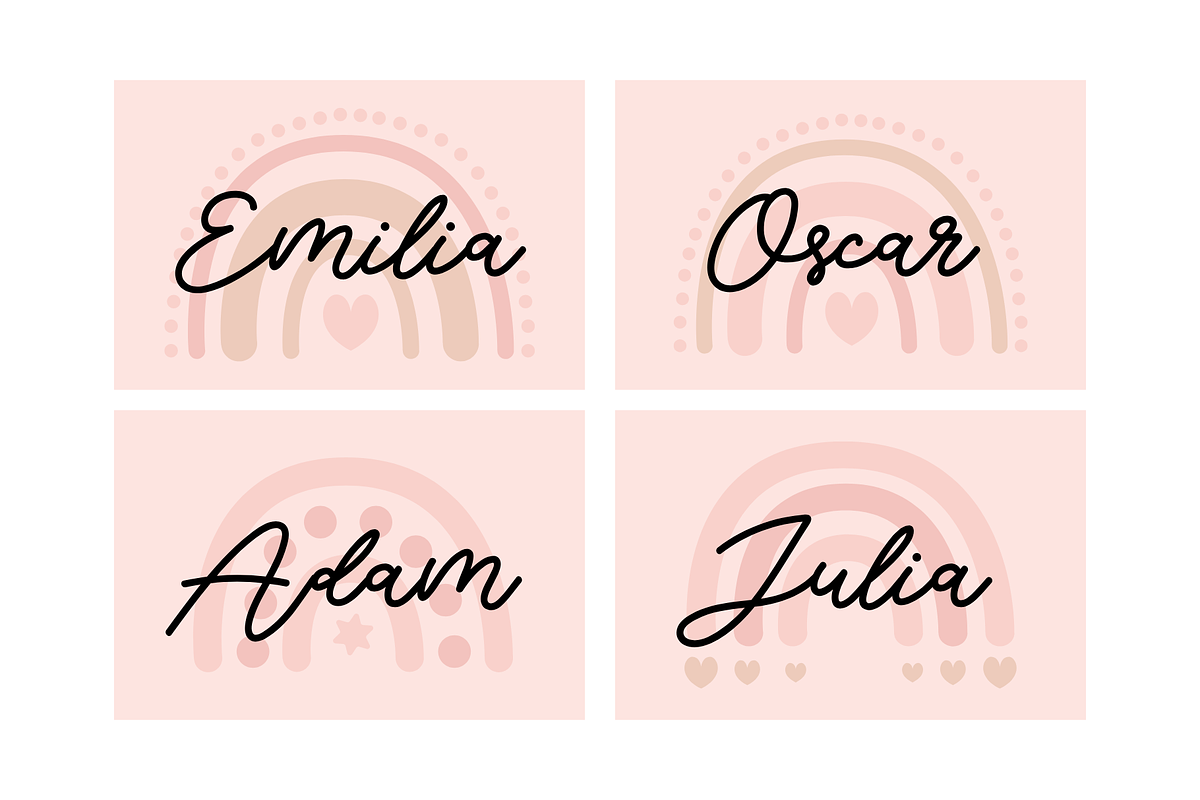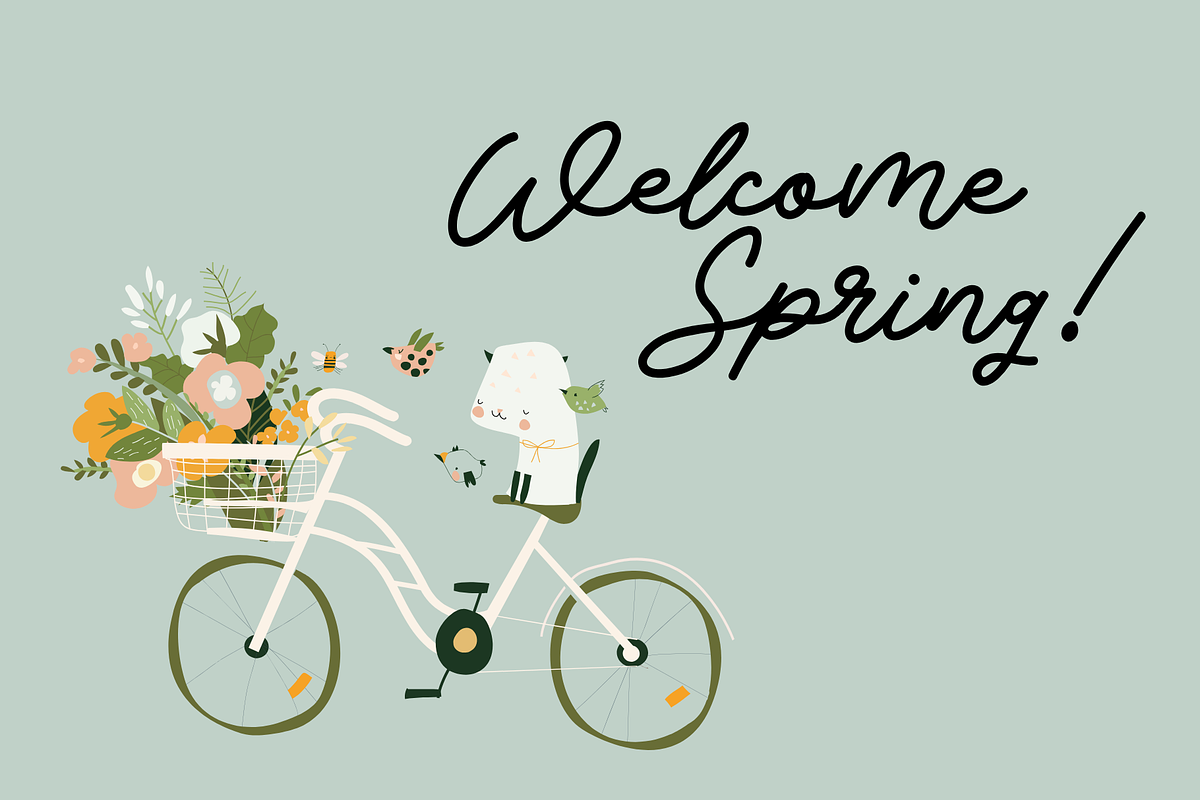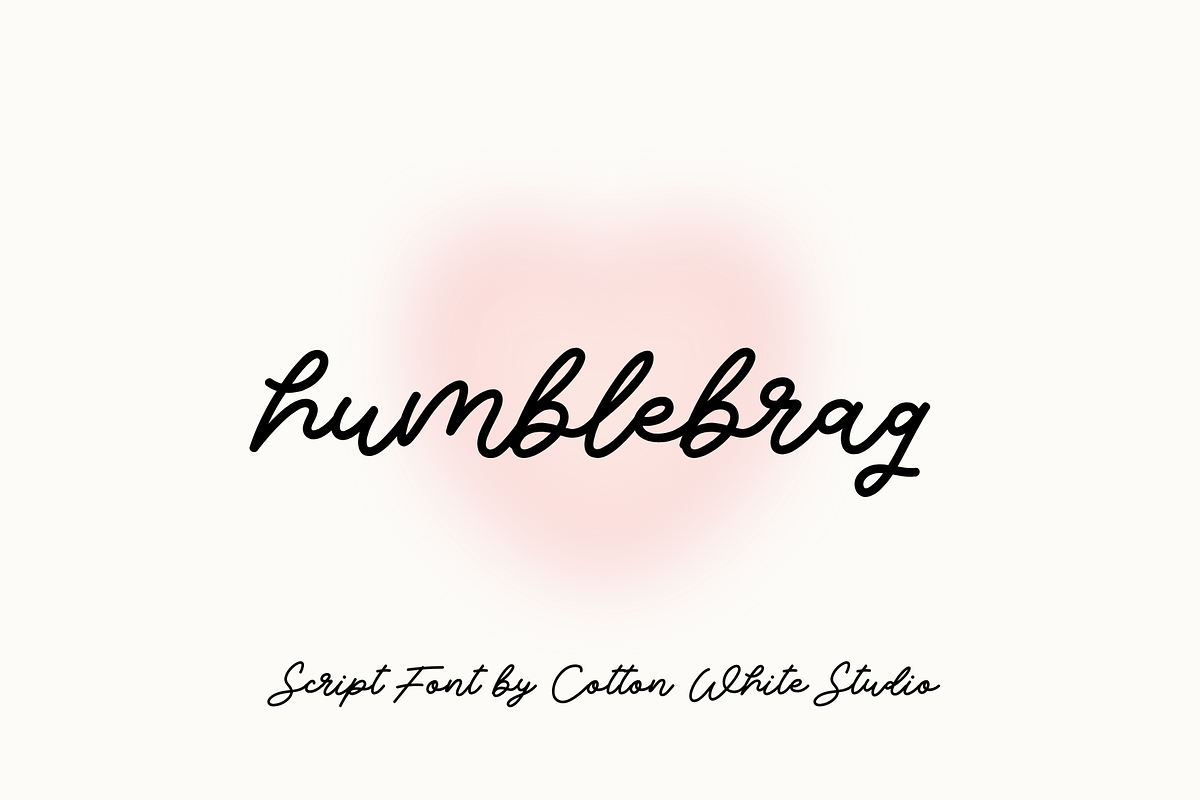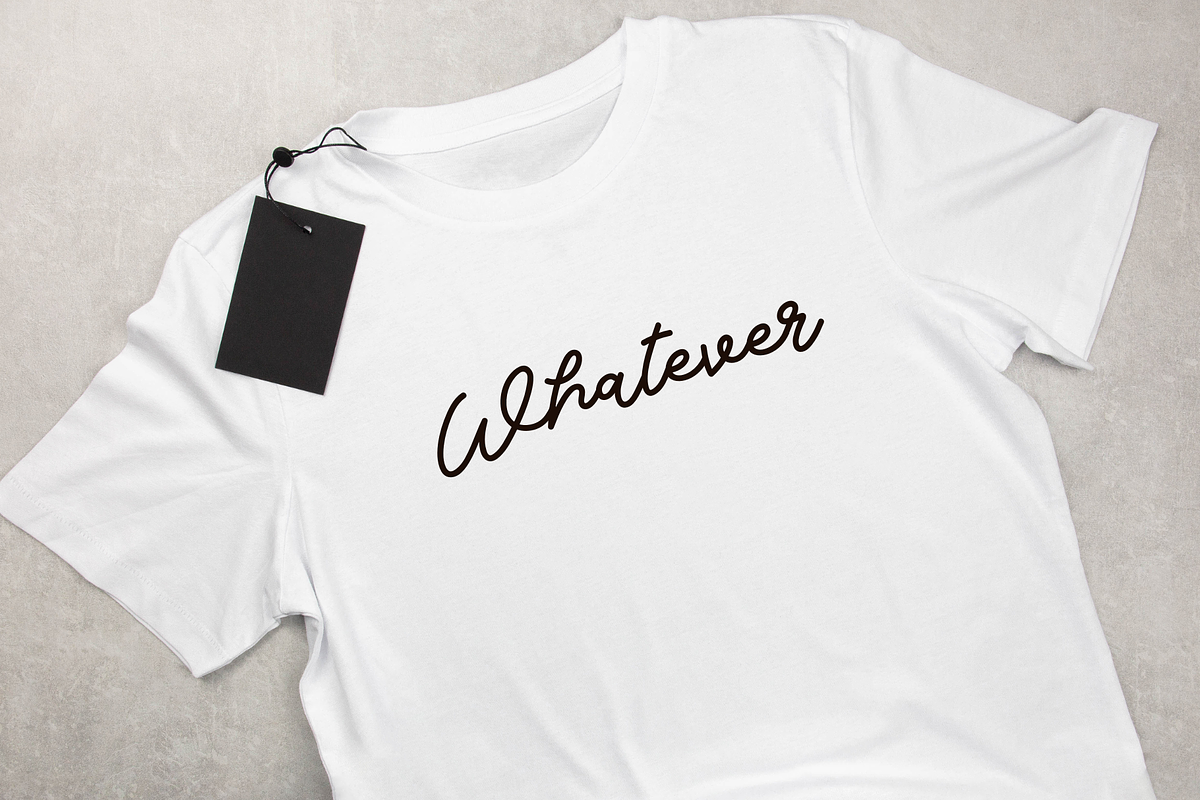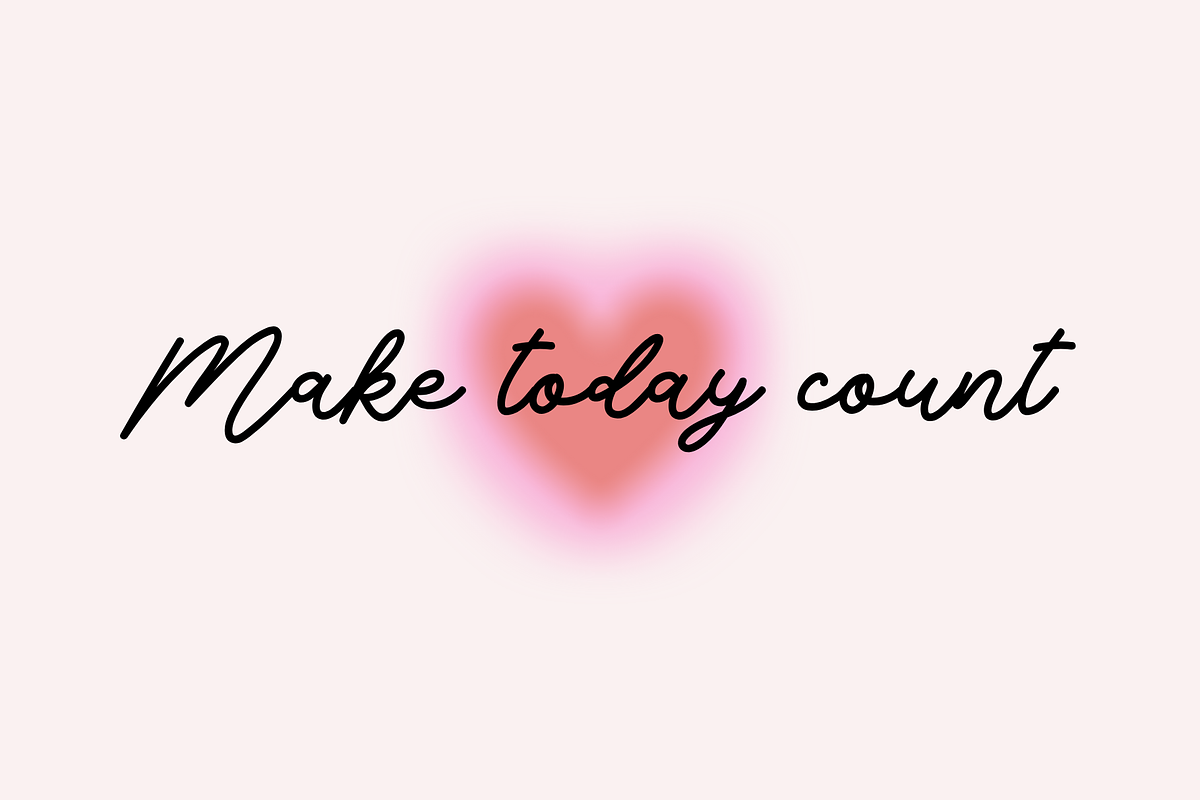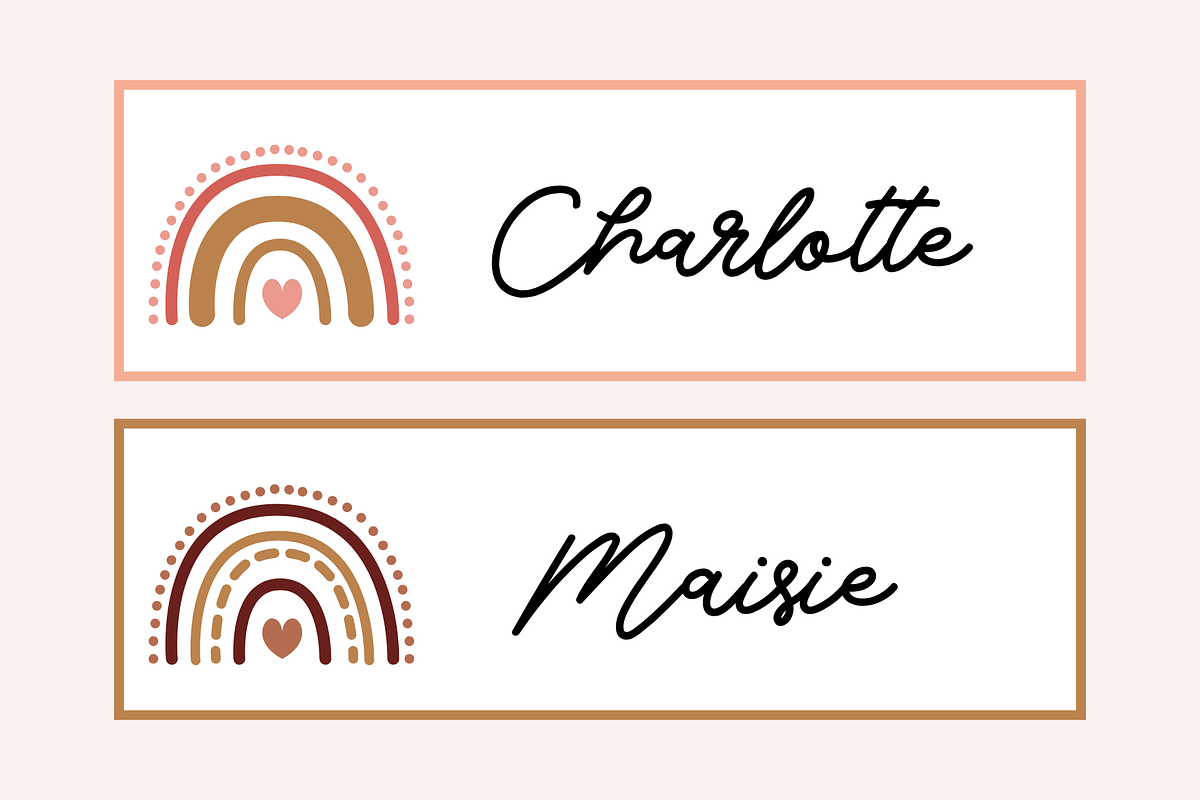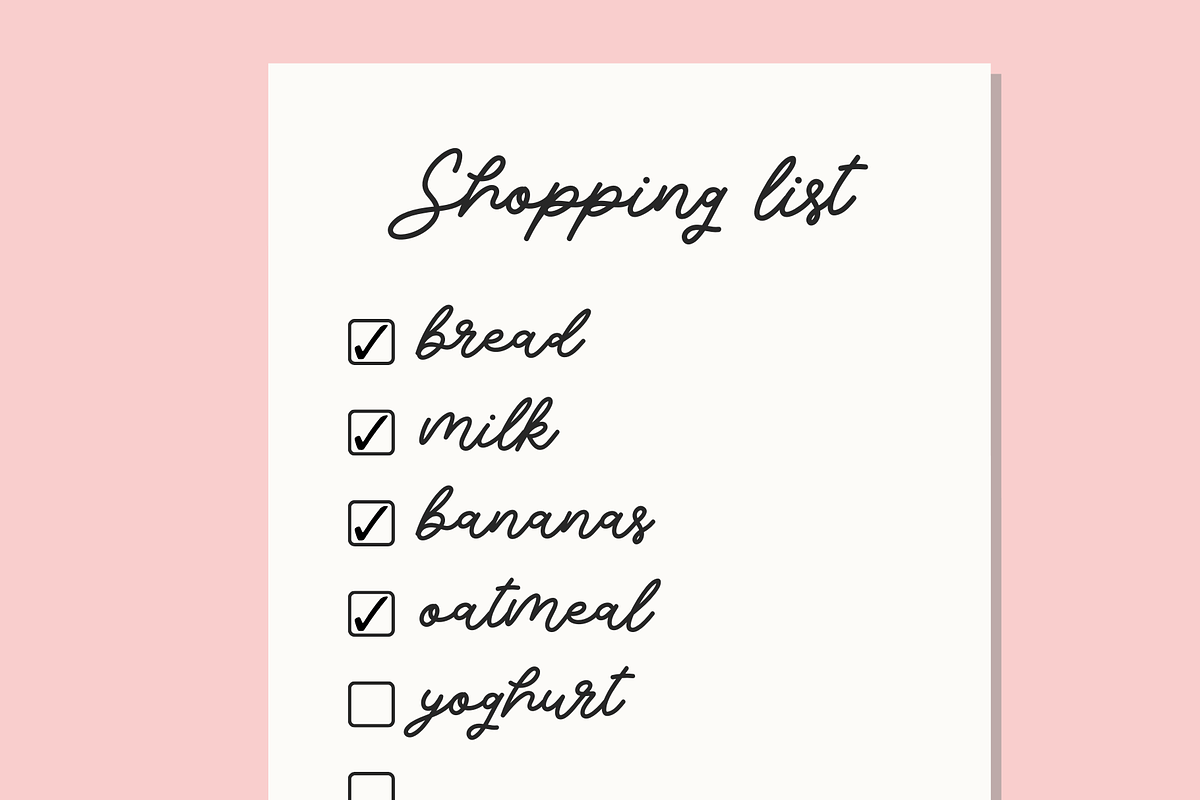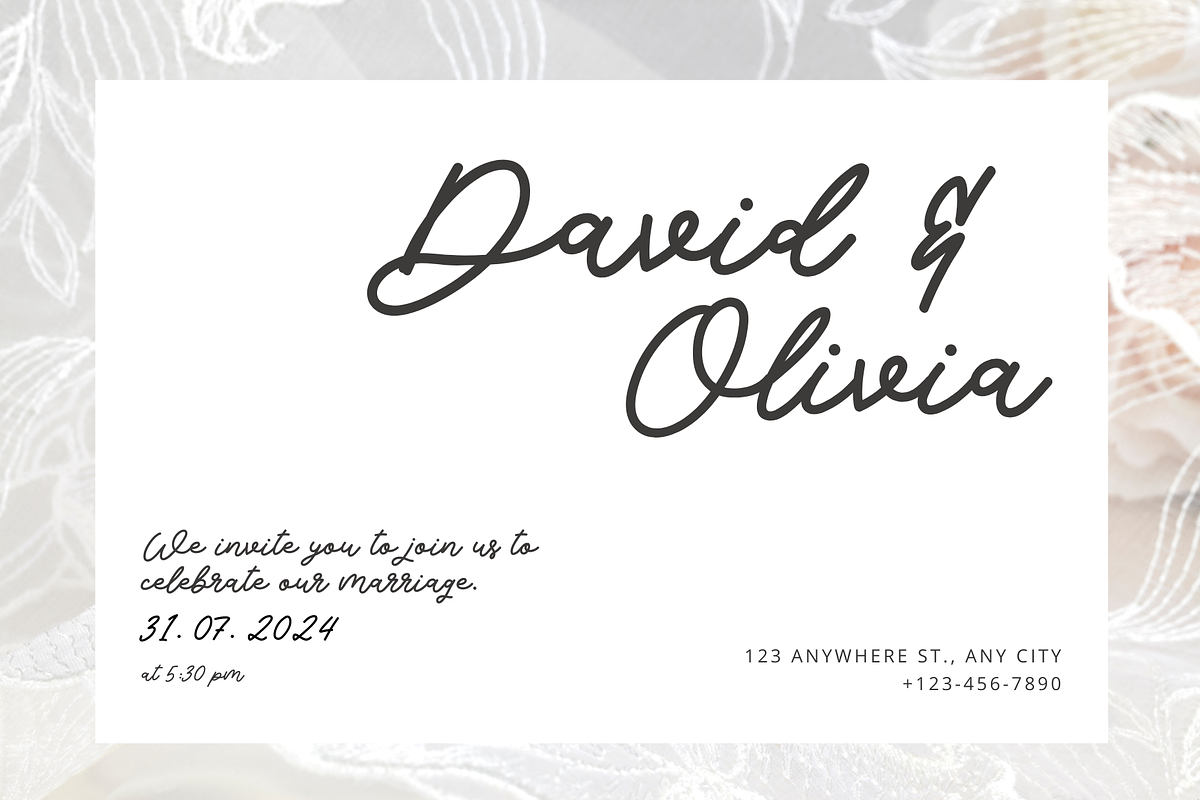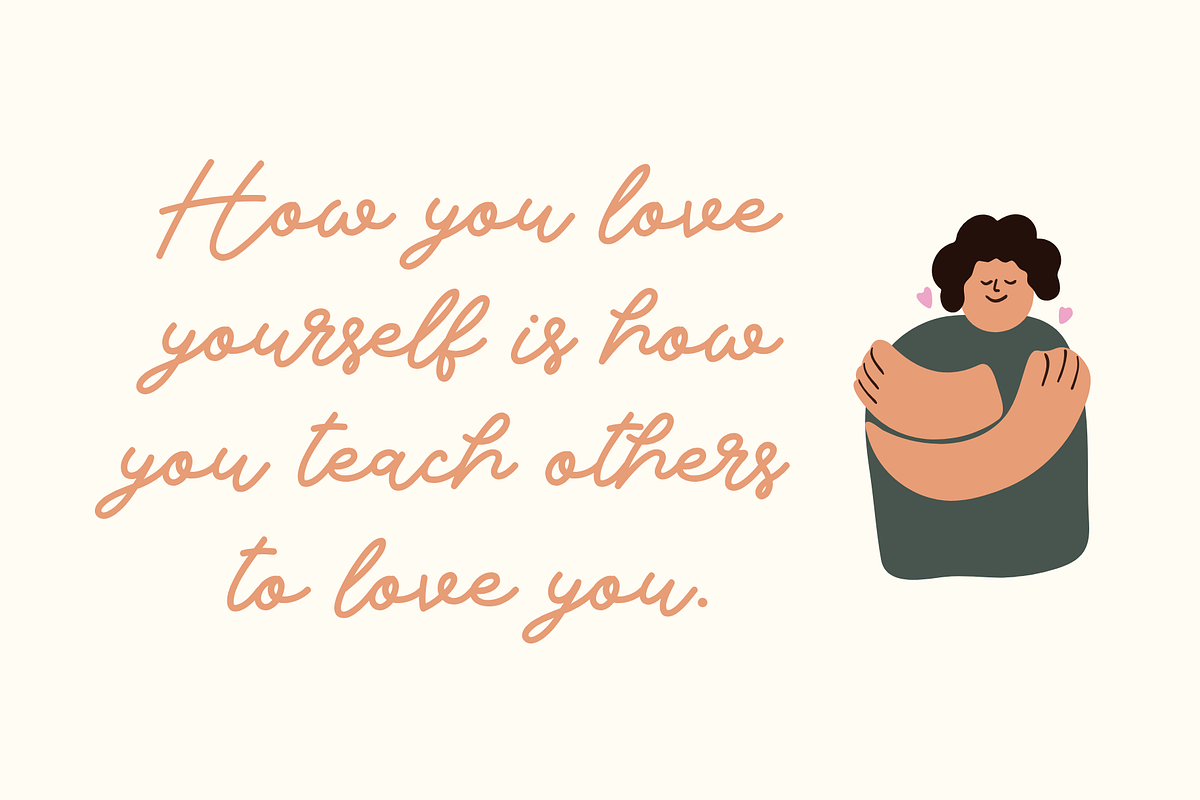
Humblebrag Script Font
Add a beautiful, hand crafted look to your work with a fabulously scripted font! A hand drawn elegant font that will add a uniq touch to your work. Perfect for branding, invitations, blogs, planners and much more.